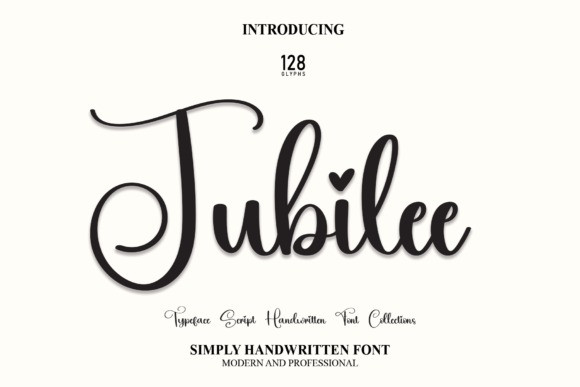
Jubilee Script Font
Jubilee Script Font, is latest style letters are perfect for wall displays, wedding invitations, social media post logos, advertisements, product packaging, product designs, labels, photography, watermarks, invitations, stationery, and any project that requires a handwritten taste.